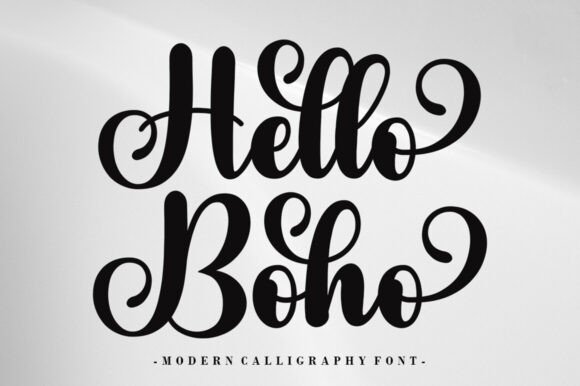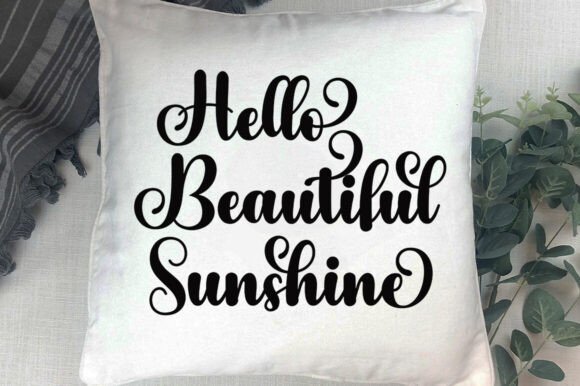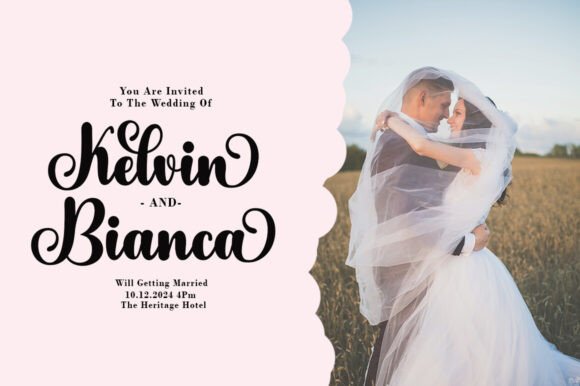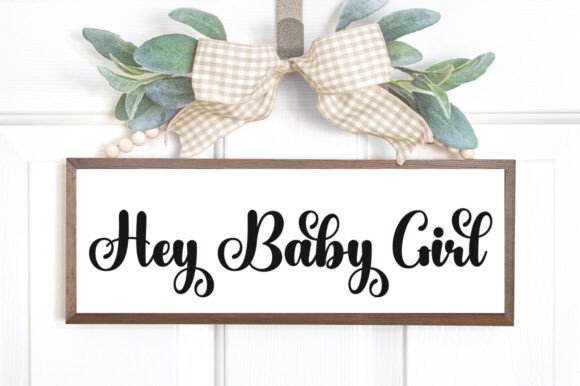
About the Hello Boho Font
We are excited to introduce Hello Boho Font, a must-have typeface for any serious designer. Hello Boho fonts are charming and elegant. This stunning script font is a stylish homage to classic calligraphy. This font will elevate any design project to the highest level, be it branding, titles, wedding designs, invitations, signs, logos, labels, and more!
Hello Boho’s elegant, flowing forms are ideal for headlines, short text blocks, and branding elements where a touch of vintage charm is desired. It excels in wedding invitations, signage, and logos for boutique businesses or handcrafted products. However, its decorative nature makes it unsuitable for body text or UI elements requiring high readability.
Consider pairing Hello Boho with a clean sans-serif like Montserrat for a balanced contrast, or a simple serif like Playfair Display for a more classic feel. For a modern twist, a geometric sans-serif like Futura could provide a striking juxtaposition. Avoid pairing it with other highly decorative scripts to prevent visual clutter.
The overall personality of Hello Boho is sophisticated yet approachable; elegant but not overly formal. It evokes a sense of timeless style and handcrafted quality, making it perfect for brands aiming for a refined and slightly romantic aesthetic.